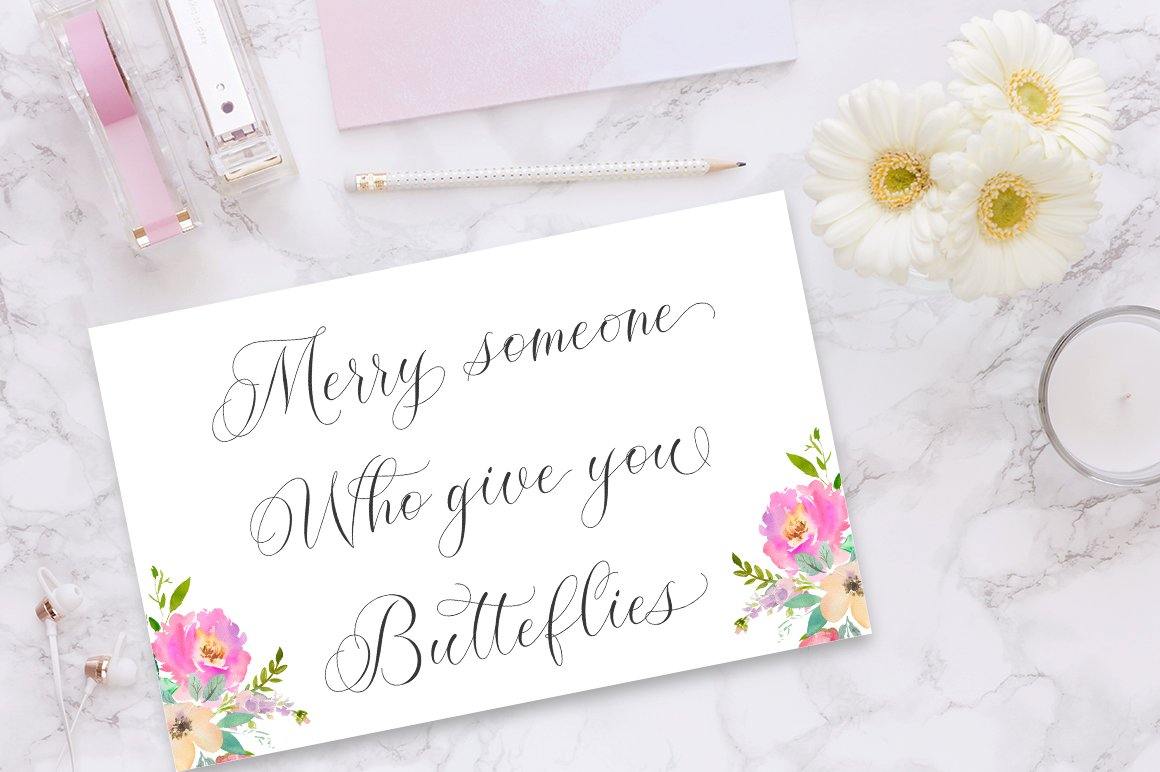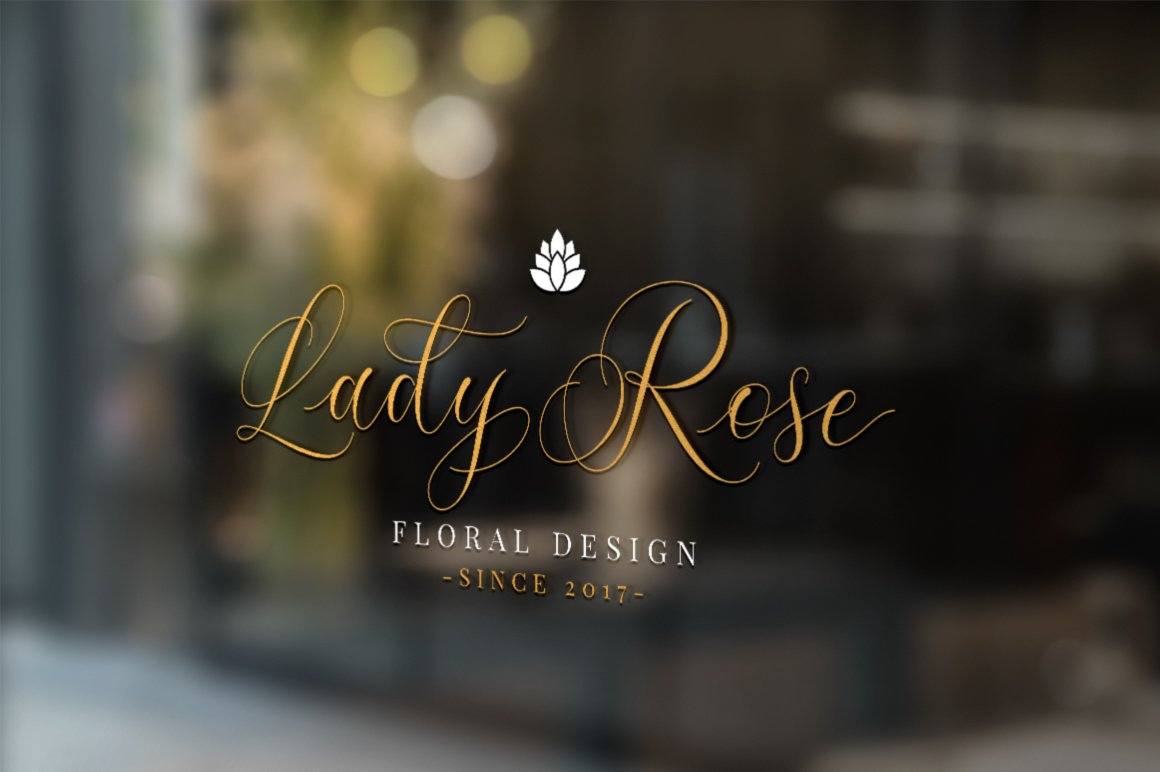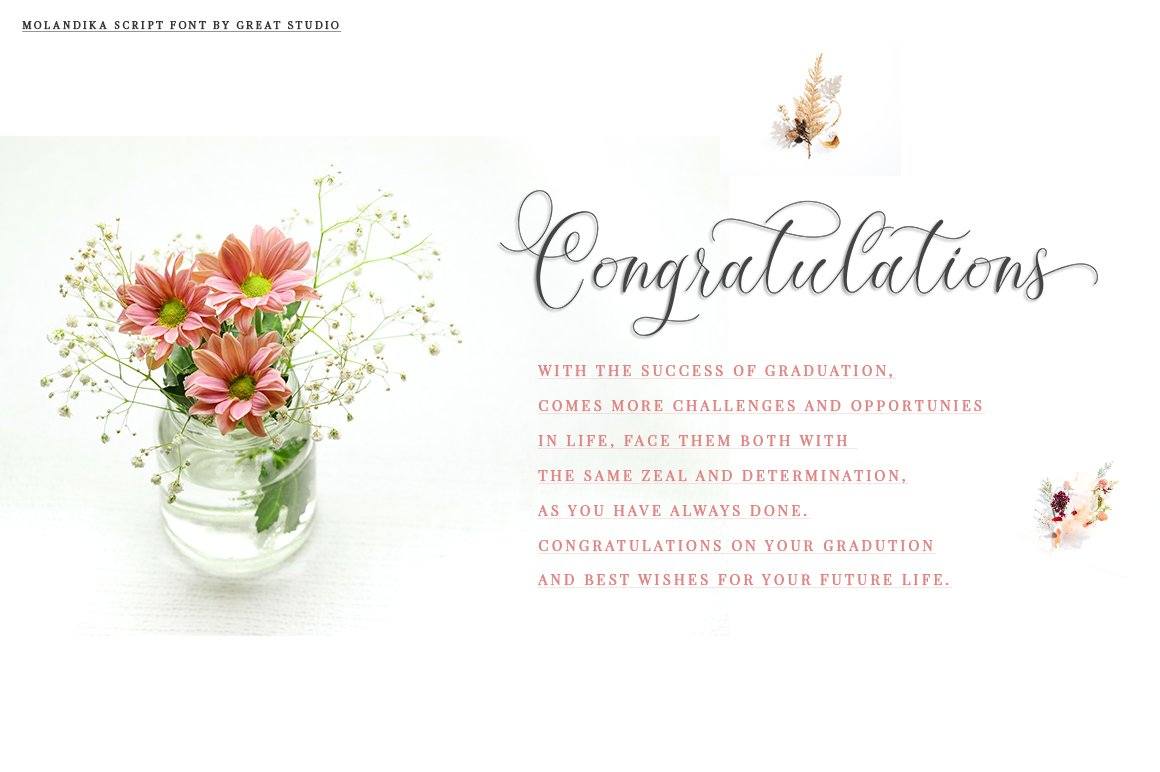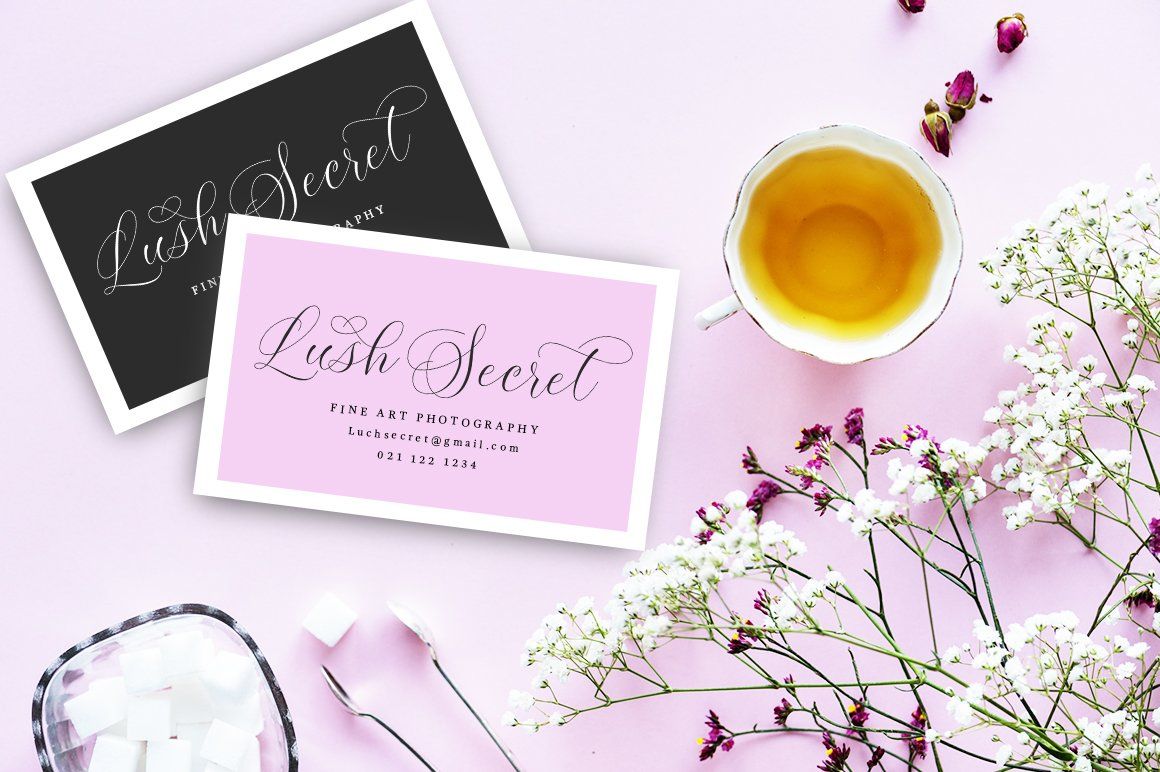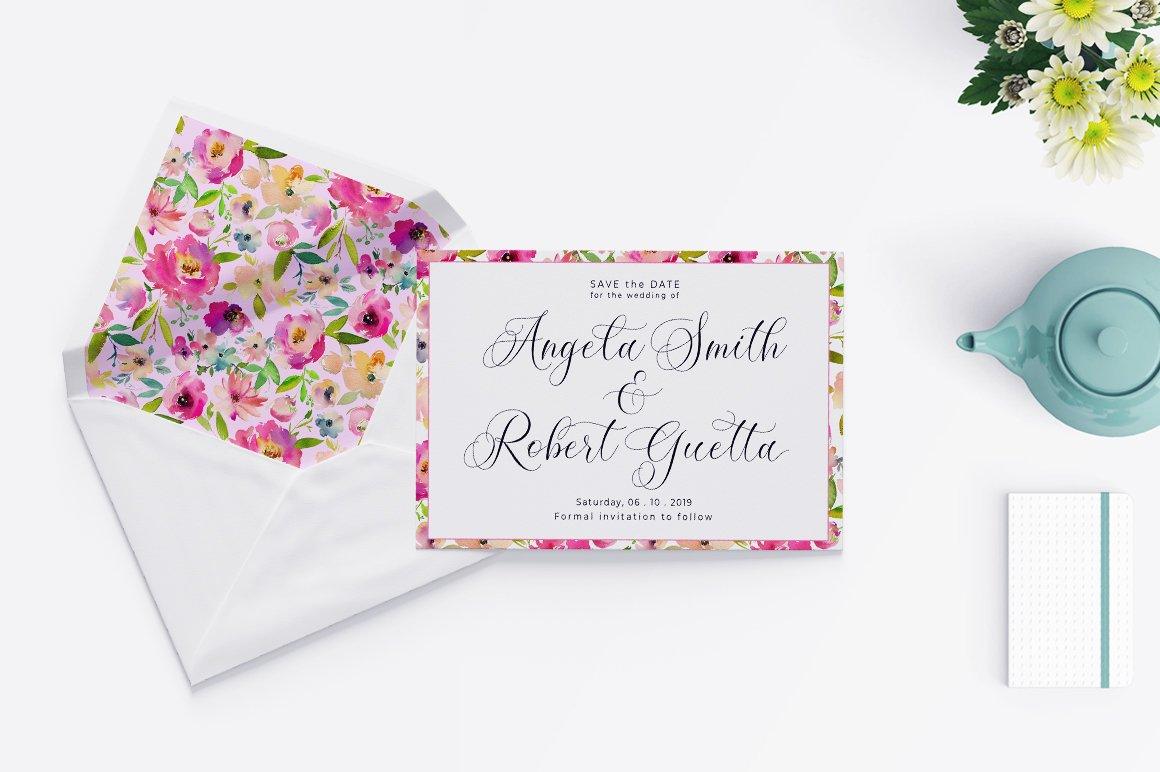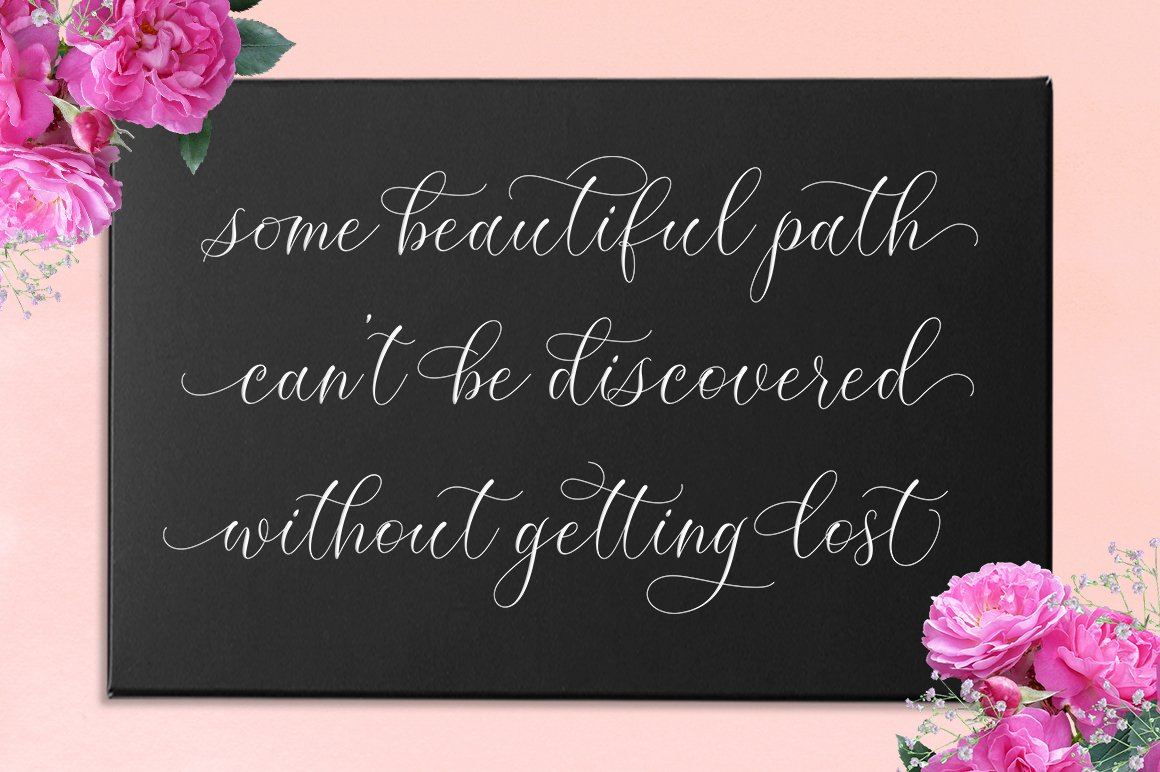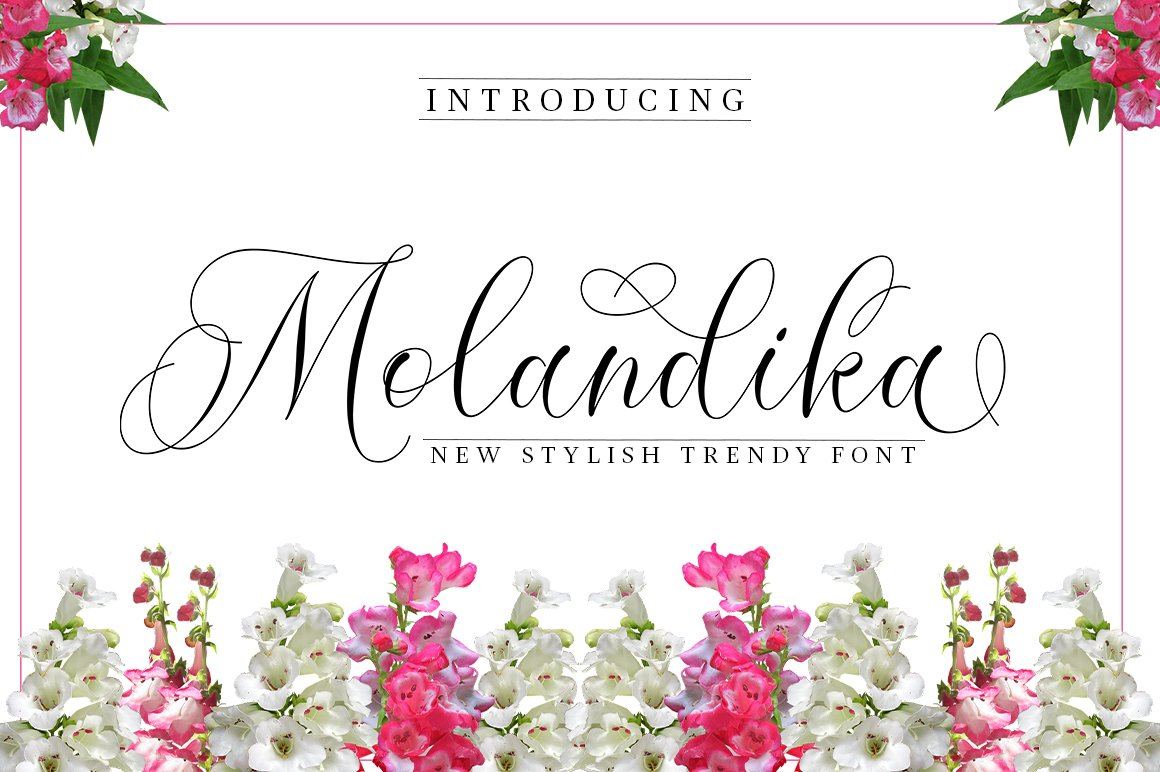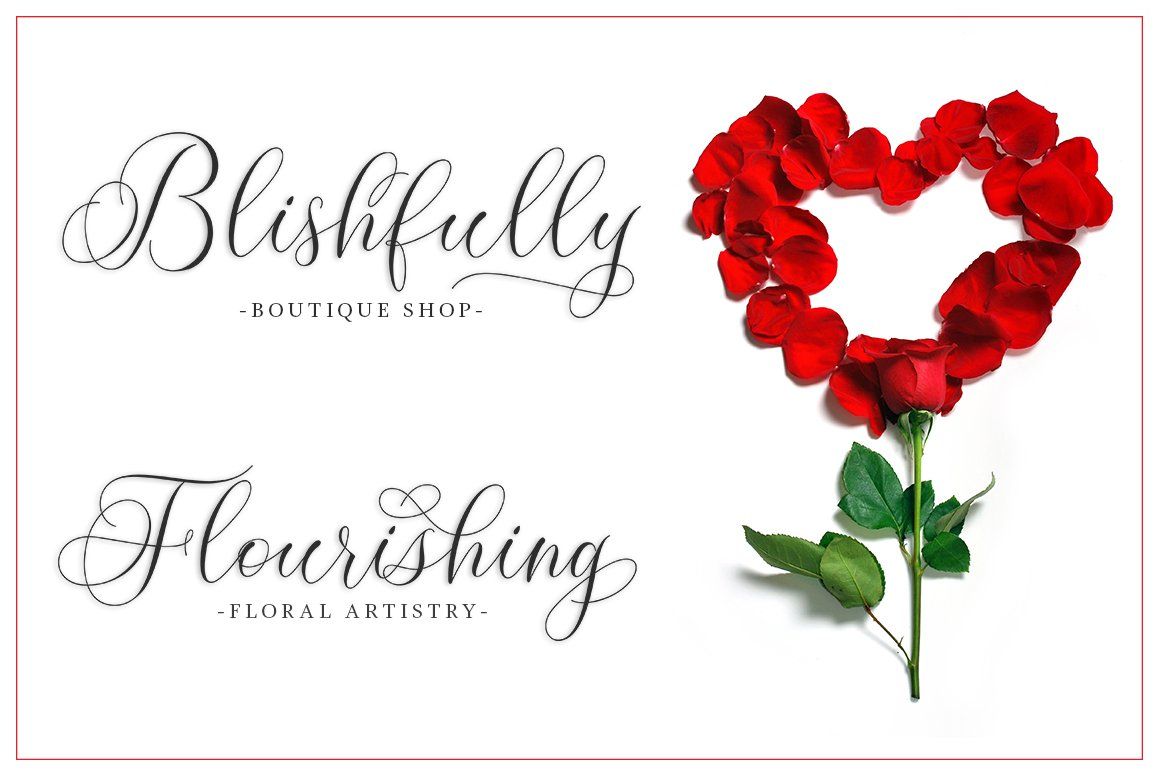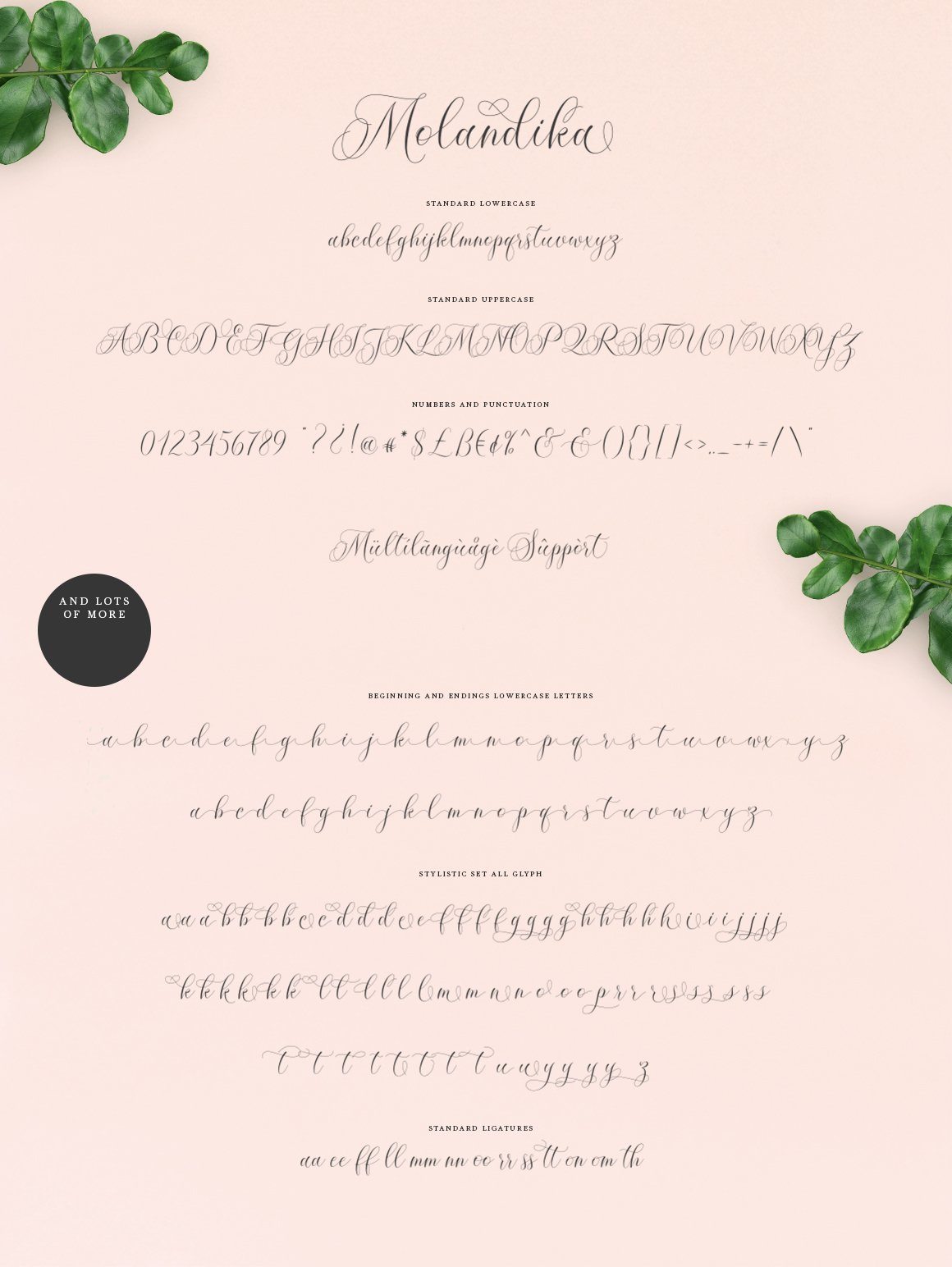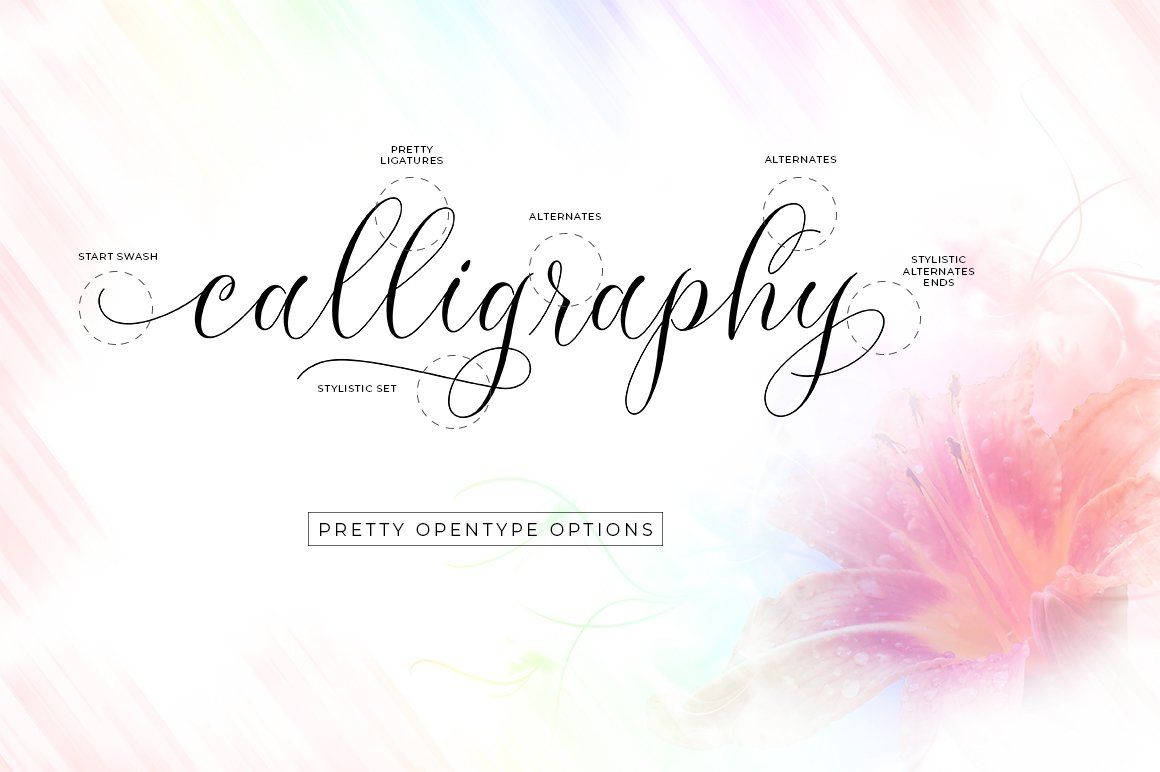
Molandika Script
About Molandika Script
Molandika Script is elegant calligraphy font, designed to convey elegance and style. It is slender, feminine and friendly, This font is casual and pretty with swashes. Can used for various purposes. such as logo, product packaging, wedding invitations, branding, headlines, signage, labels, signature, book covers, posters, quotes and more. Molandika Script Script features OpenType stylistic alternates, ligatures and International support for most Western Languages is included. To enable the OpenType Stylistic alternates, you need a program that supports OpenType features such as Adobe Illustrator CS, Adobe Indesign & CorelDraw X6-X7, Microsoft Word 2010 or later versions. How to access all alternative characters using Adobe Illustrator : https://www.youtube.com/watch?v=XzwjMkbB-wQ Molandika Script is coded with PUA Unicode, which allows full access to all the extra characters without having special designing software. Mac users can use Font Book , and Windows users can use Character Map to view and copy any of the extra characters to paste into your favourite text editor/app. How to access all alternative characters, using Windows Character Map with Photoshop : https://www.youtube.com/watch?v=Go9vacoYmBw If you need help or have any questions, please let me know. I’m happy to help 🙂 Thanks & Happy Designing!